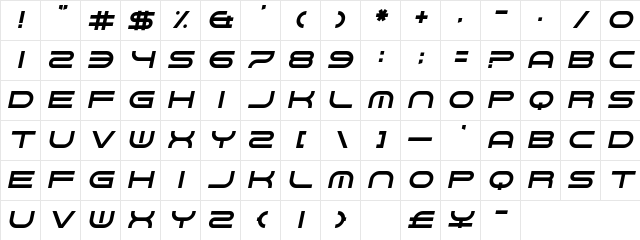
Gnaw Hard Italic Regular
Complete Gnaw Hard Italic Regular glyph index. Displaying only characters natively supported by Gnaw Hard Italic Regular font.
Design Context for Gnaw Hard Italic
Gnaw Hard Italic is a composed and adaptable typeface that performs quietly and consistently across a wide range of design contexts. The slanted form adds forward momentum and visual energy.
Pro Tip: Use Gnaw Hard Italic for emphasis, pull quotes, and subheadings where its slanted energy can add rhythm to the layout.